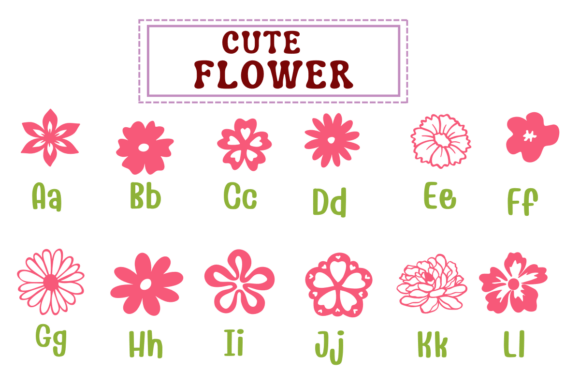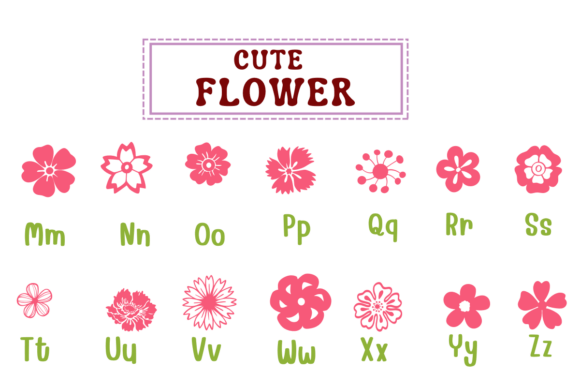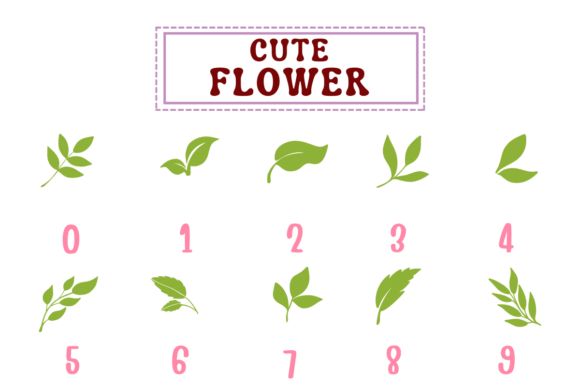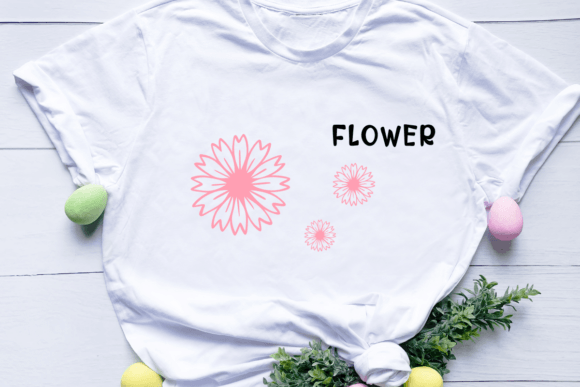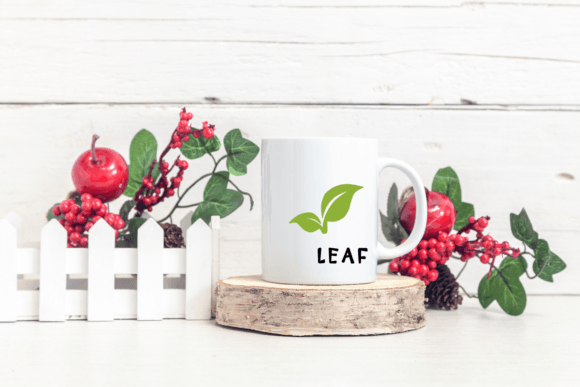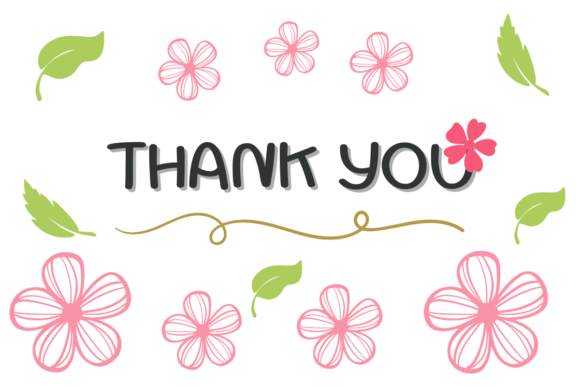
The Power of Cute Flower Font: Adding a Touch of Whimsy to Your Designs
I still remember the time I was working on a project for a client’s baby shower invitation. I had all the design elements in place – the pastel colors, the playful illustrations, and the sweet sentiment – but something was missing. That’s when I stumbled upon the Cute Flower font, and it was love at first sight! 💕
This charming dingbat font features small, adorable flower designs instead of letters, and it’s perfect for adding a cheerful, floral touch to cards, crafts, and decorations. In this article, I’ll share my experience with Cute Flower, its features, and how to make the most of it in your designs.
An Honest Review of Cute Flower Font
- ✨ The adorable flower designs are perfect for spring, summer, or any project that needs a touch of whimsy.
- ✅ The font is easy to use and works well in various design platforms.
- 🌼 The variety of flower designs keeps the font fresh and exciting.
- 💬 It’s a great way to add a personal touch to your designs without being too over-the-top.
- 🤔 The font is a dingbat font, so you’ll need to use the glyphs or OpenType features to access the flower designs.
- ⚠️ Some platforms might not support the full range of glyphs or stylistic alternates.
The Designer Inspiration Behind Cute Flower
Cute Flower was designed with the intention of bringing a touch of whimsy and playfulness to designs. The designer, inspired by the beauty of flowers and the joy of crafting, created this font to make it easy for others to add a personal touch to their projects.
Q: What type of projects is Cute Flower best suited for?
A: Cute Flower is perfect for projects that need a touch of whimsy and playfulness, such as baby shower invitations, wedding decorations, or children’s party invitations.
Q: Is Cute Flower available in different languages?
A: Cute Flower is a dingbat font, so it’s not designed for specific languages. However, the font can be used in any project that requires a touch of whimsy and playfulness.
Q: Can I combine Cute Flower with other fonts?
A: Yes, Cute Flower can be combined with other fonts to create a unique and interesting design. Experiment with different font combinations to find the perfect look for your project.